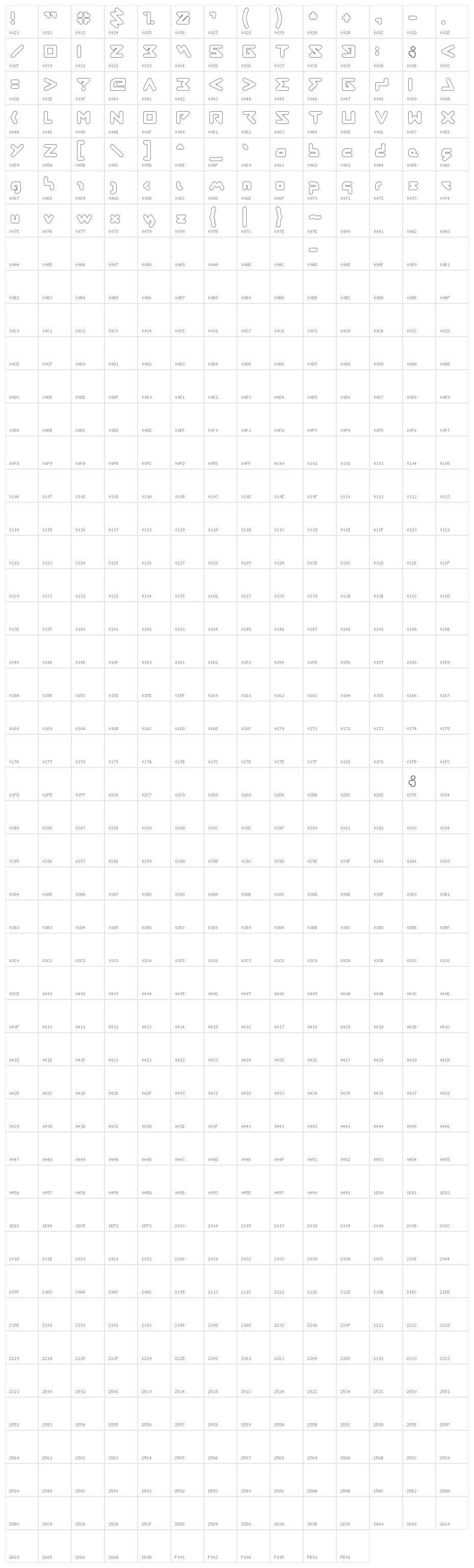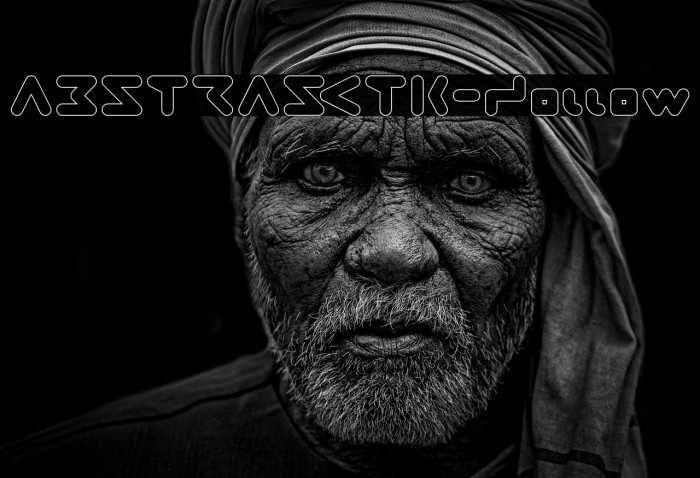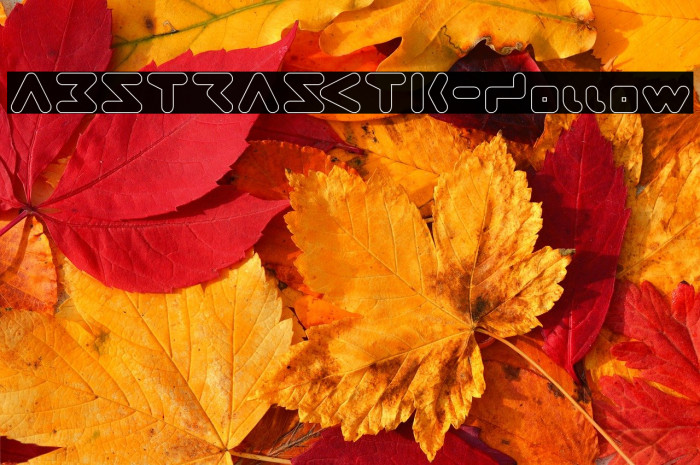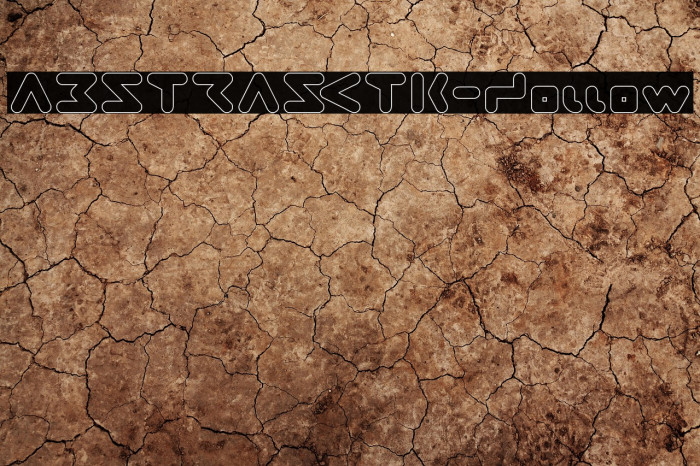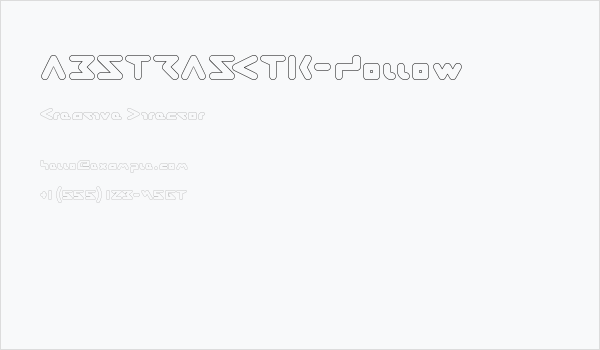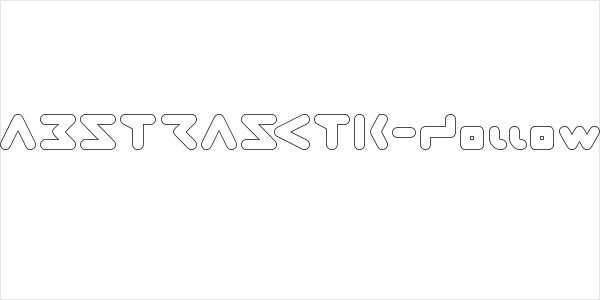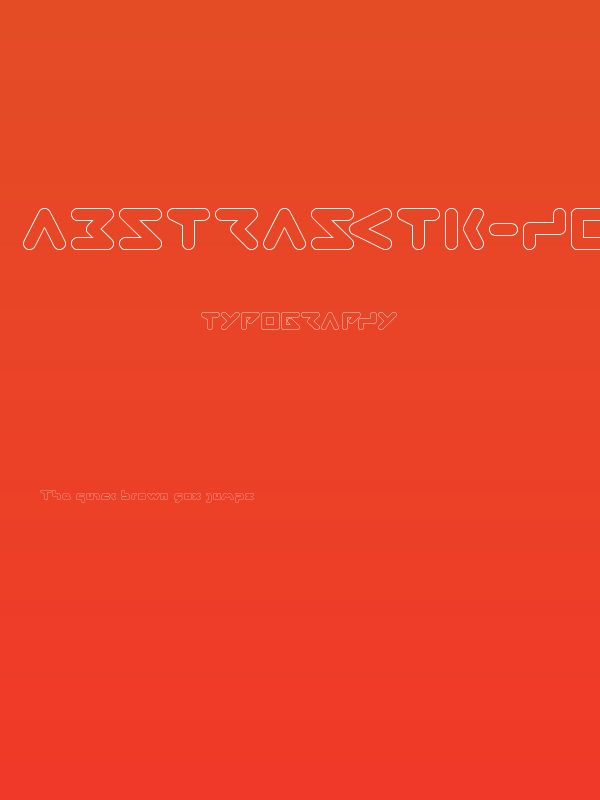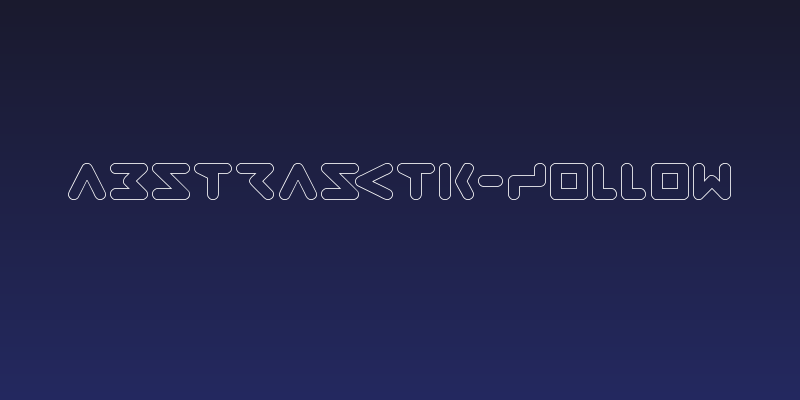
ABSTRASCTIK-Hollow Font
ABSTRASCTIK-Hollow Description
This font features a unique, abstract design with hollow, geometric shapes that create a futuristic and modern aesthetic. Each character is composed of bold, angular lines that form distinct, eye-catching patterns. The uppercase and lowercase letters maintain a consistent style, with a playful yet structured appearance. The numbers and special characters follow the same design principles, ensuring a cohesive look across all elements. This font's hollow nature gives it a light and airy feel, making it ideal for creative and artistic projects.
| Use Case | Logos, Posters, Digital Art |
| Proposed Projects | Ideal for sci-fi themed designs, modern art projects, digital media, and branding that requires a futuristic touch. |